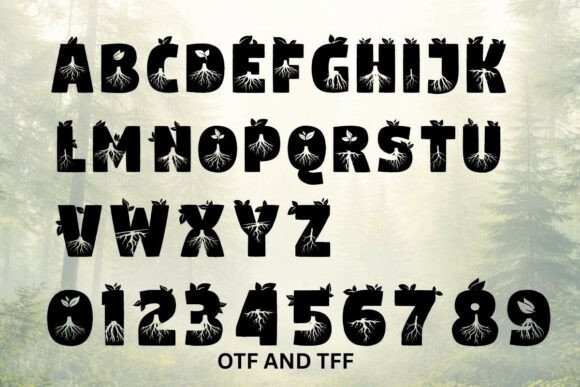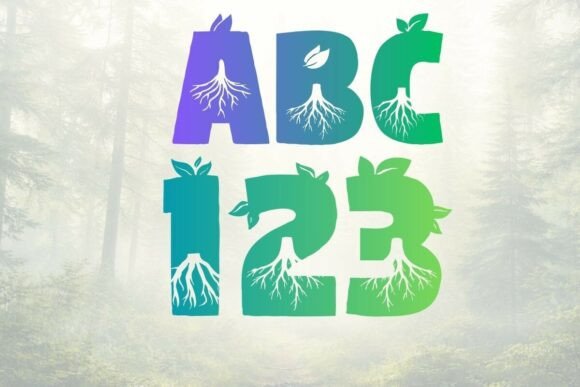
Introduction to Deep Roots Font
Bring the beauty of nature into your designs with this unique Roots & Leaves Display Font.
Inspired by forest roots, growing vines, and organic leaf shapes, this font is perfect for earthy, botanical, kids, and handmade projects This font includes capital letters and numbers only, designed with playful root and leaf details that give your text a natural and artistic look.
Key Features of Deep Roots Font
Why Choose Deep Roots Font?
Deep Roots Font offers exceptional quality and versatility, making it a valuable addition to your design toolkit. Whether you’re creating for personal projects or commercial use, Deep Roots Font delivers professional results.